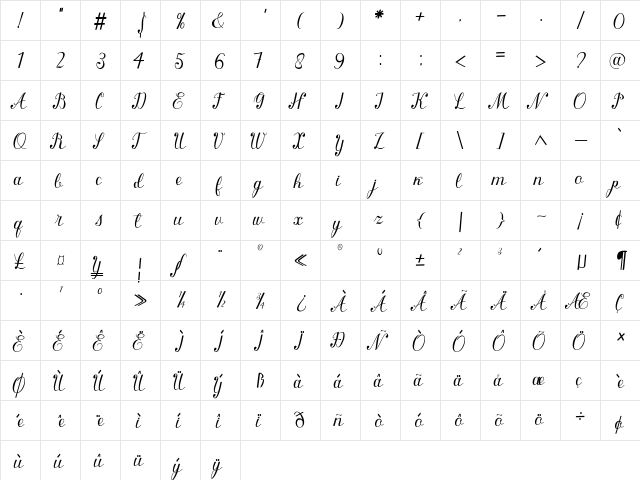
queenly Regular
Design Context for queenly Typeface
queenly is a composed and adaptable typeface that performs quietly and consistently across a wide range of design contexts.